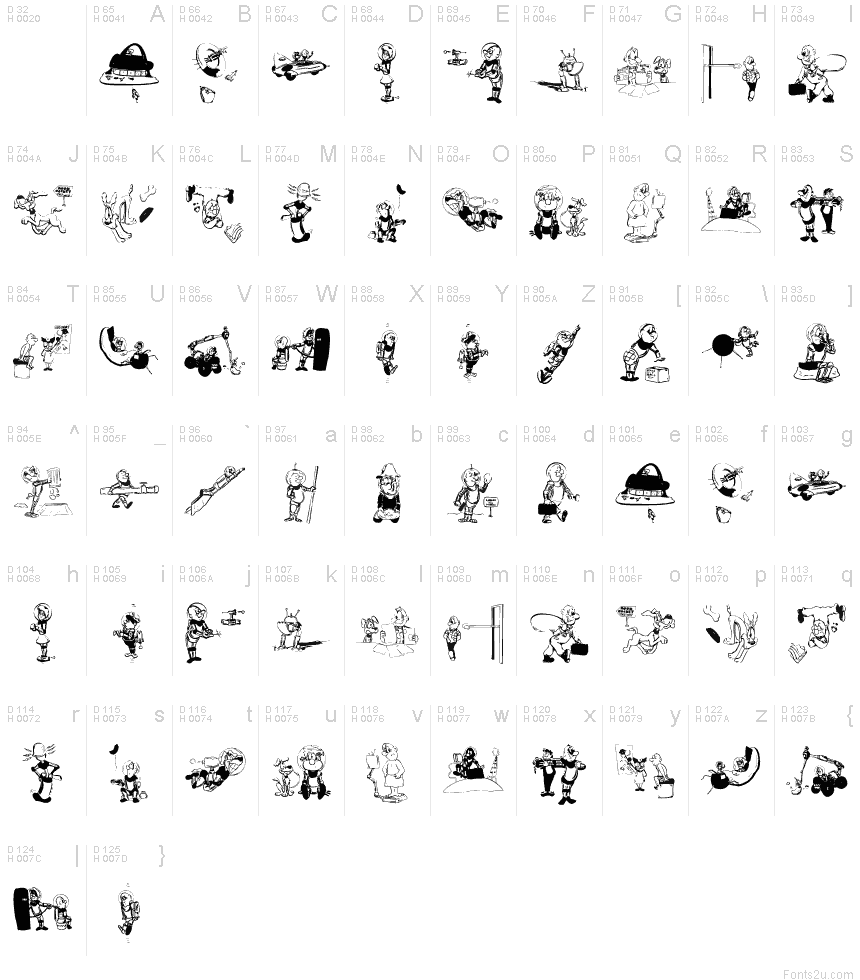
FromTheMoon by Manfred Klein is a free cartoon dingbat font built from lively hand-drawn figures. Its loose ink outlines, exaggerated poses, and odd props recall newspaper gag cartoons. Every symbol tells a tiny joke.
The illustrated scenes can mingle directly with comic panels and children's publishing, since each mark already reads as a miniature character sketch. They also suit humorous posters and novelty merchandise. Across those uses, the shared appeal comes from slapstick motion and eccentric human and animal personalities.